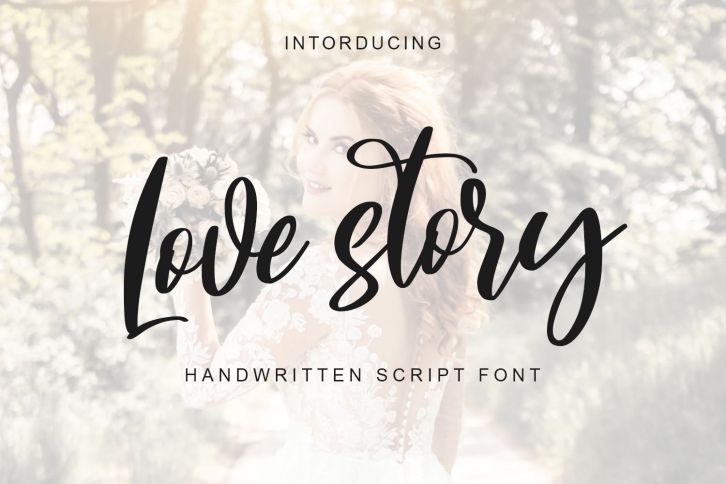
Love Story is a gorgeous font that was realeased on January 25, 2021. The font can be used in many style contexts and design environments. Perfect for invitations, magazines, websites, logos, and more! It was designed by letterfandstudio and the file size is 5.4 MB. Thanks for checking out this font!